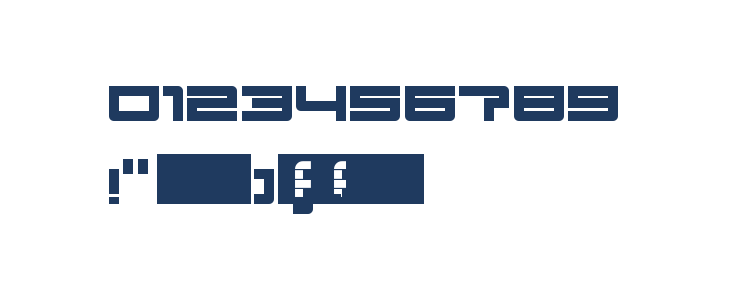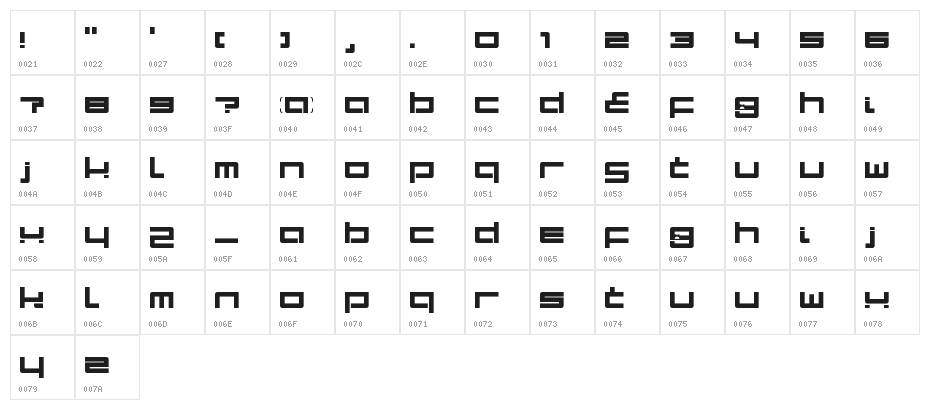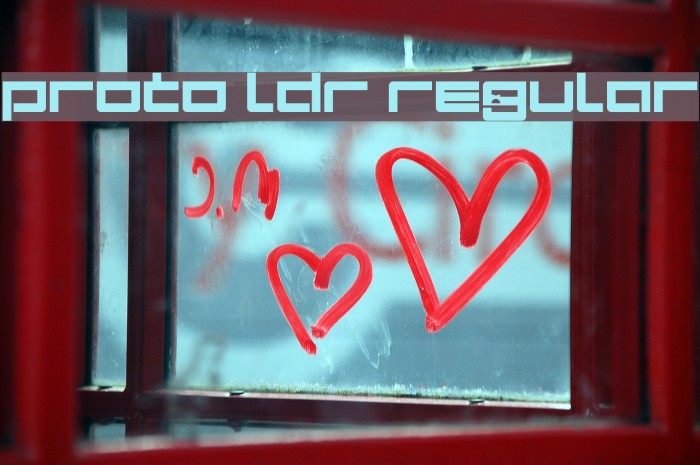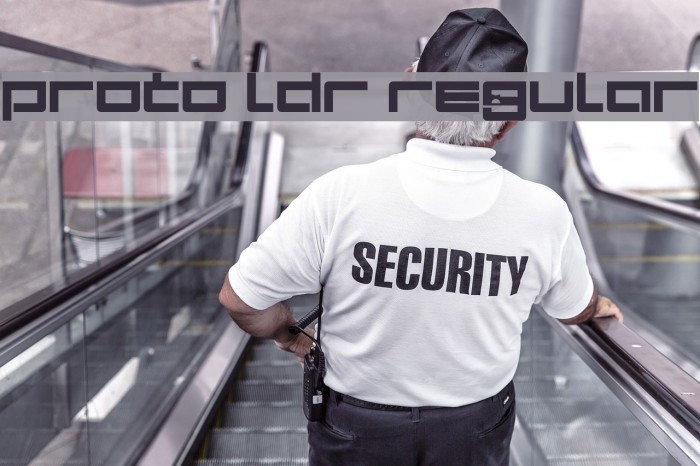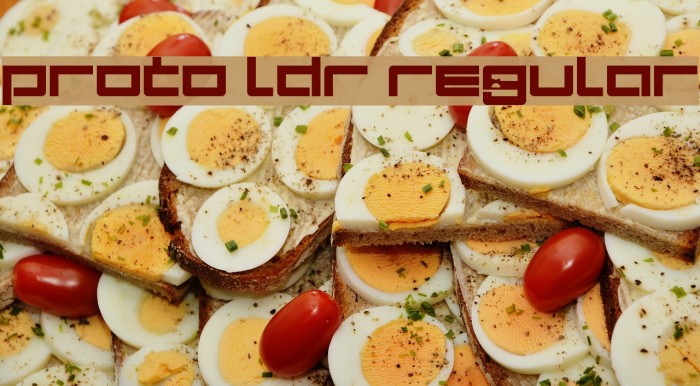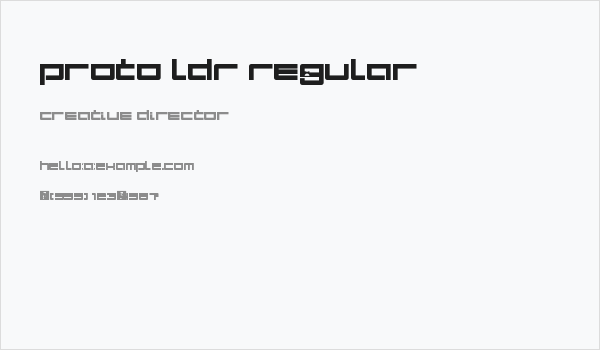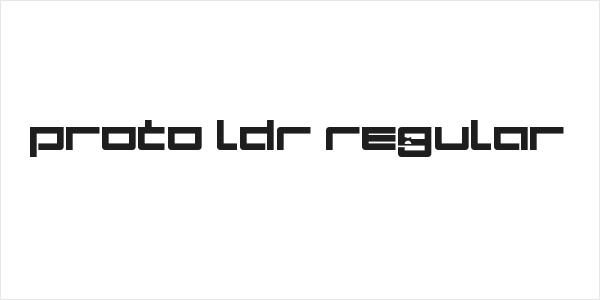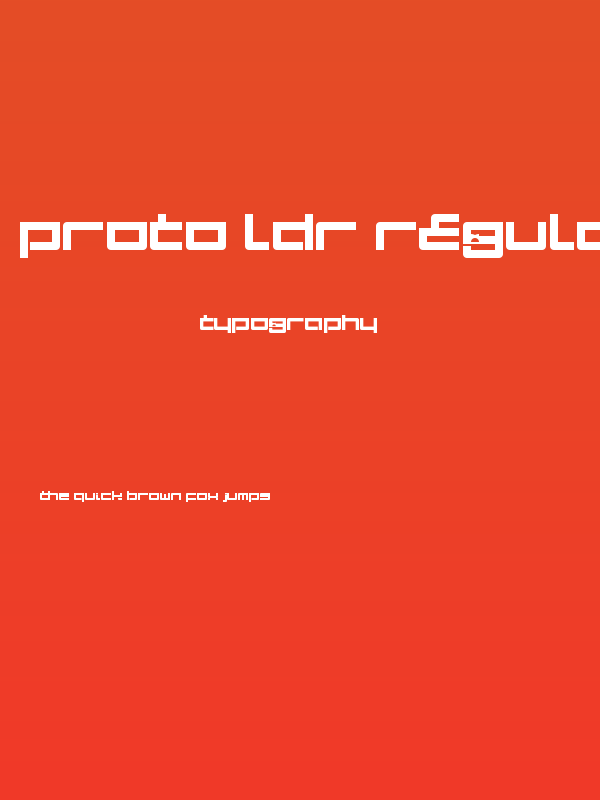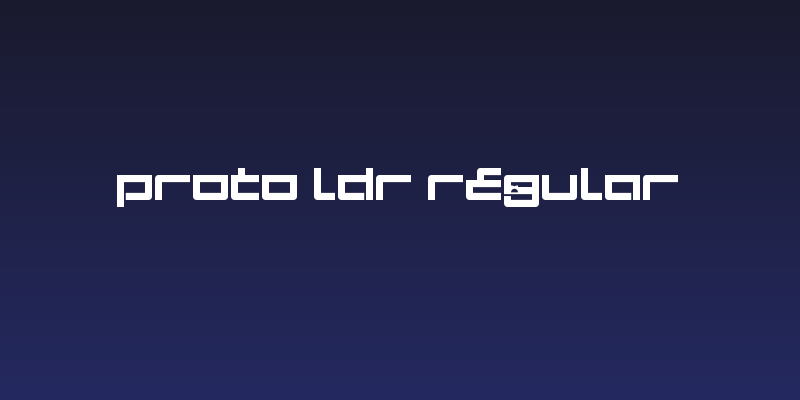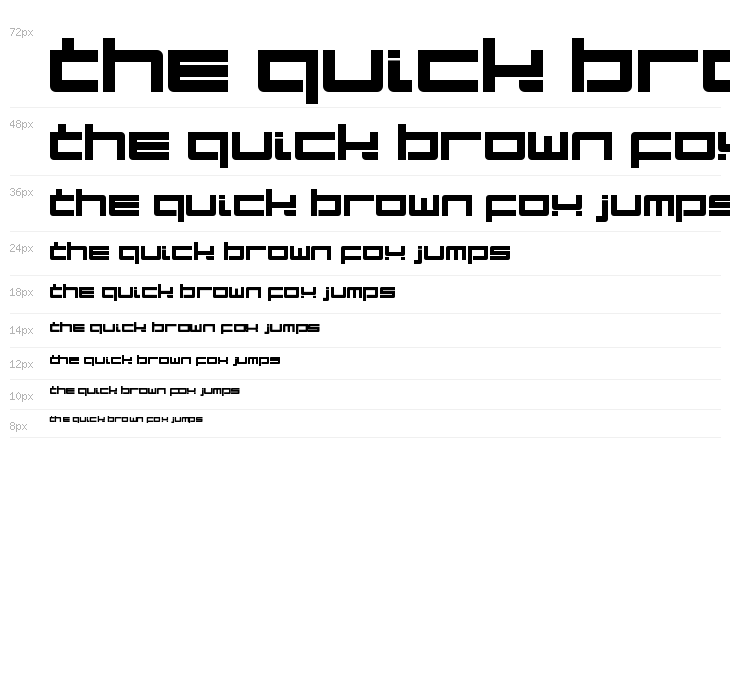
Proto LDR Regular Font
Proto LDR Regular Description
This font features a futuristic and geometric design, characterized by its blocky and angular letterforms. The characters are constructed with consistent line thickness, giving it a uniform and structured appearance. The design incorporates sharp angles and straight lines, creating a modern and tech-inspired aesthetic. The uppercase and lowercase letters maintain a similar style, with subtle variations in height and width. The numerals and special characters follow the same geometric pattern, ensuring visual coherence across all glyphs. This font's distinct style makes it suitable for projects that require a bold and contemporary look.